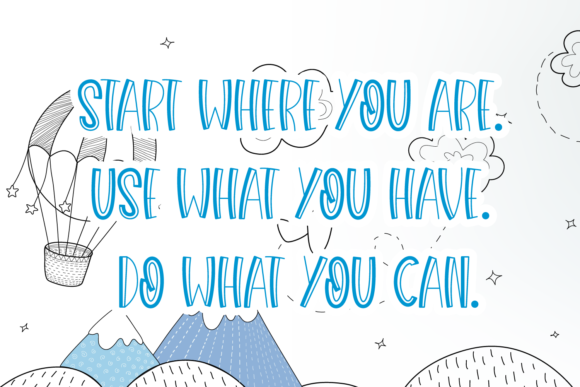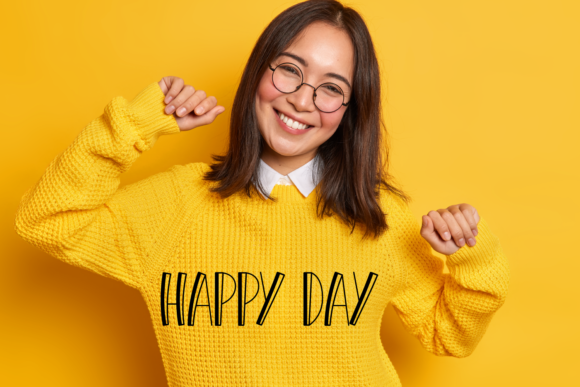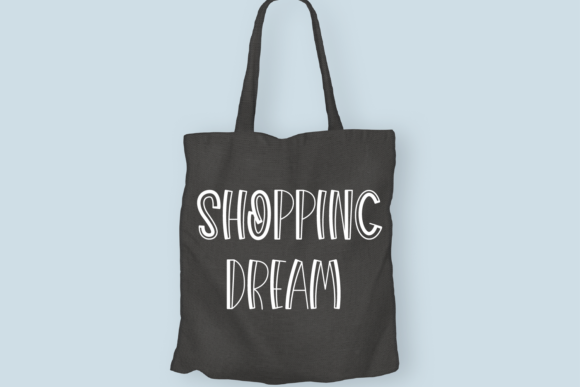
Crafty Rainbow Font: Elevate Your Designs with a Pop of Color
Are you tired of using the same old fonts in your designs? Do you want to add a touch of whimsy and personality to your projects? Look no further than the Crafty Rainbow Font! This simple yet stunning display font is perfect for crafters, designers, and anyone looking to add a splash of color to their work.
What is Crafty Rainbow Font?
Crafty Rainbow is a beautiful, easy-to-use display font that can be paired with a wide range of projects. Its versatility makes it an excellent addition to any designer’s toolkit. Whether you’re working on a DIY craft project, a branding campaign, or a social media graphic, Crafty Rainbow Font is sure to make your work stand out.
Key Features of Crafty Rainbow Font
- Simple yet eye-catching design: Crafty Rainbow Font boasts a clean and straightforward design that is both elegant and attention-grabbing.
- Multipurpose: This font can be used in a variety of projects, from digital designs to print materials.
- Easy to read: Despite its playful and colorful nature, Crafty Rainbow Font remains highly legible, making it perfect for titles, headings, and short paragraphs.
- Highly versatile: Pair Crafty Rainbow Font with a wide range of fonts to create unique and visually appealing combinations.
How to Use Crafty Rainbow Font in Your Designs
Crafty Rainbow Font can be used in a variety of design projects, including:
- DIY Crafts: Add a personal touch to your handmade crafts, such as cards, invitations, and gift tags.
- Branding and Advertising: Use Crafty Rainbow Font to create eye-catching logos, social media graphics, and ad campaigns.
- Digital Designs: Incorporate Crafty Rainbow Font into your website designs, email newsletters, and social media posts.
- Print Materials: Use Crafty Rainbow Font in your brochures, flyers, posters, and business cards.
Tips for Pairing Crafty Rainbow Font with Other Fonts
To get the most out of Crafty Rainbow Font, try pairing it with other fonts to create visually appealing combinations. Here are a few tips:
- Pair with a sans-serif font: Combine Crafty Rainbow Font with a clean sans-serif font, such as Arial or Helvetica, for a modern and crisp look.
- Match with a script font: Pair Crafty Rainbow Font with a elegant script font, such as Pacifico or Great Vibes, for a whimsical and feminine touch.
- Use with a bold font: Combine Crafty Rainbow Font with a bold font, such as Impact or Museo, for a dramatic and eye-catching effect.
Why Choose Crafty Rainbow Font?
Crafty Rainbow Font is an excellent choice for designers and crafters looking to add a pop of color and personality to their work. Here are just a few reasons why:
- Unique and eye-catching: Crafty Rainbow Font is sure to grab attention and make your designs stand out.
- Highly versatile: Crafty Rainbow Font can be used in a wide range of projects, from digital designs to print materials.